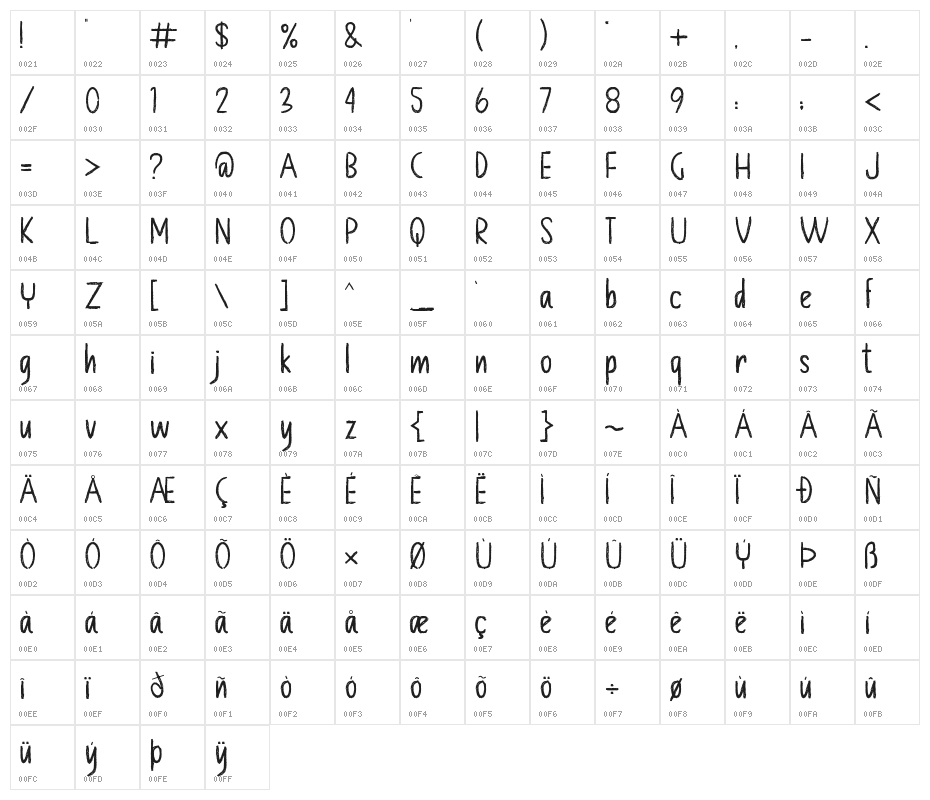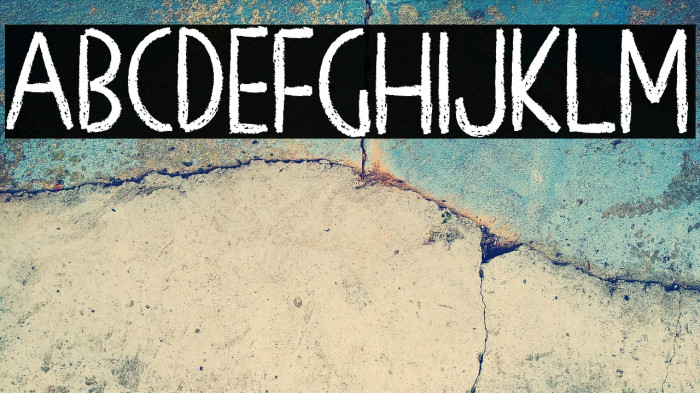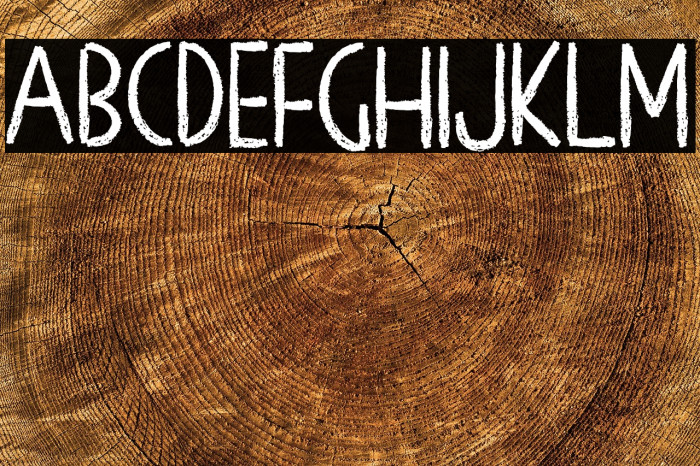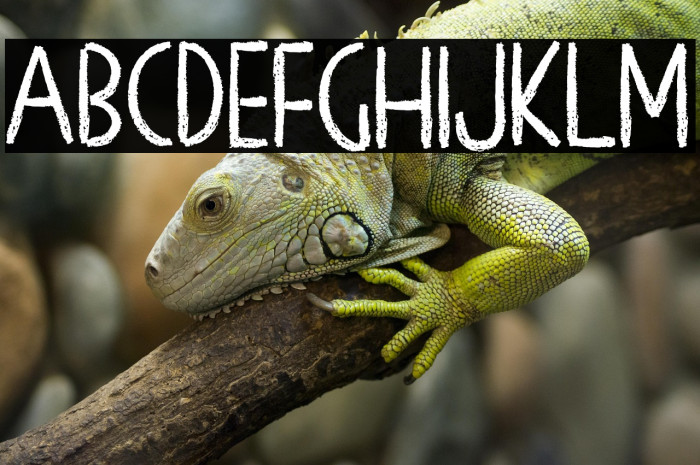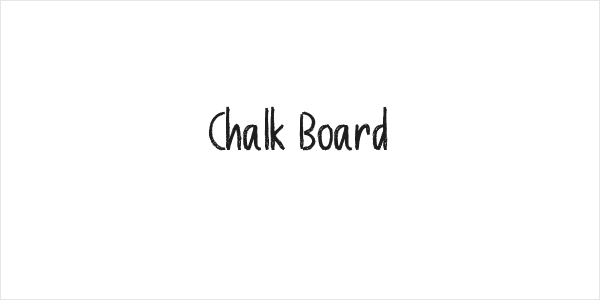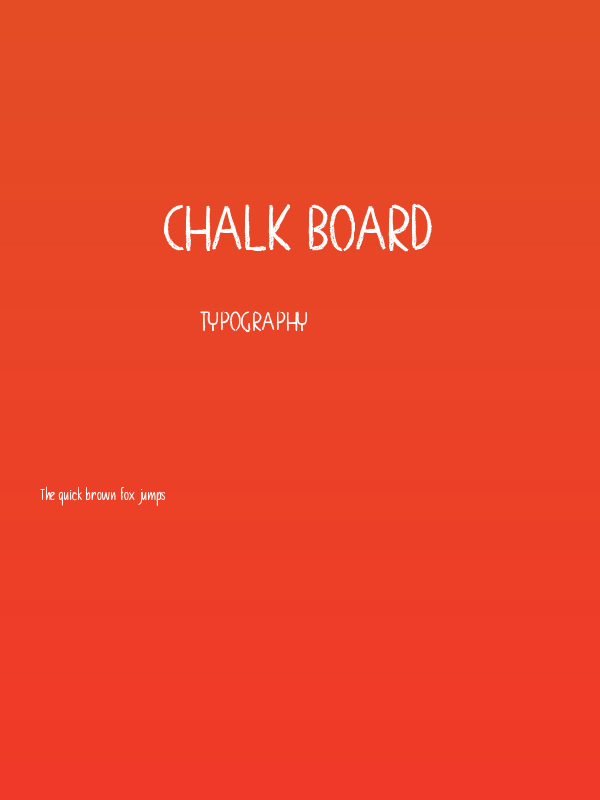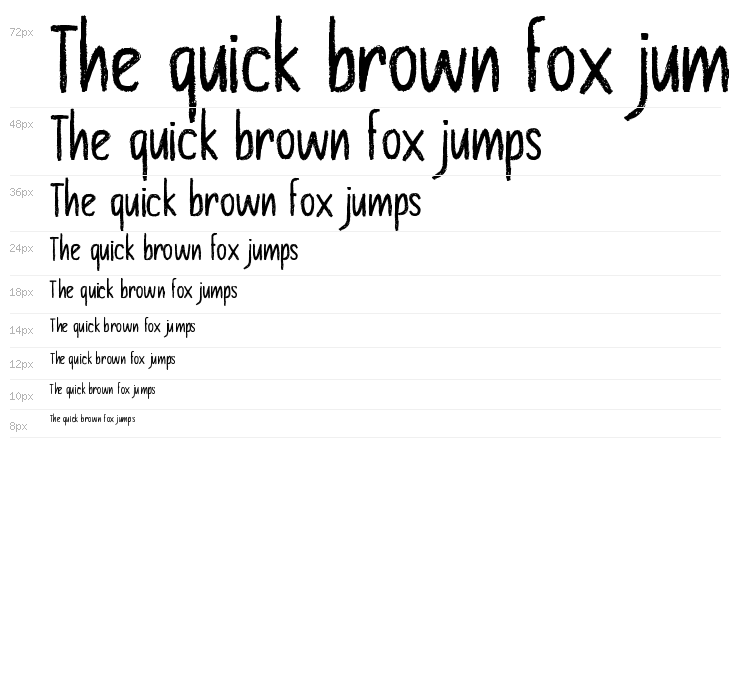
Chalk Board Font
Chalk Board Description
This font exudes a playful and informal style, reminiscent of chalk writing on a blackboard. The characters have a hand-drawn appearance, with slightly irregular edges and varying stroke thickness, adding to its casual charm. The uppercase and lowercase letters maintain a consistent height, with a slight slant that enhances its dynamic feel. The numerals and special characters are crafted with the same attention to detail, ensuring uniformity across the entire set. This font is perfect for projects that require a touch of whimsy and creativity, making it ideal for educational materials, children's books, or any design that aims to capture a sense of fun and spontaneity.
| Use Case | Headlines, Informal Text, Creative Projects |
| Proposed Projects | Ideal for educational materials, children's books, playful branding, and creative posters. |